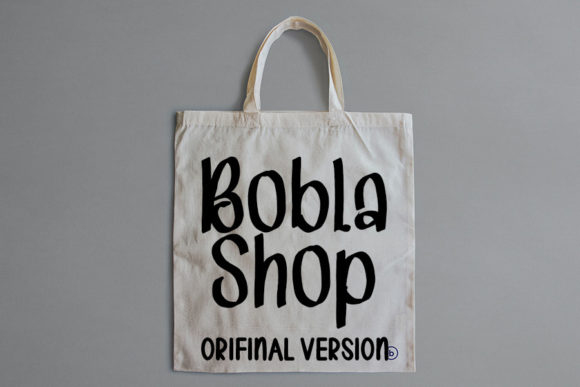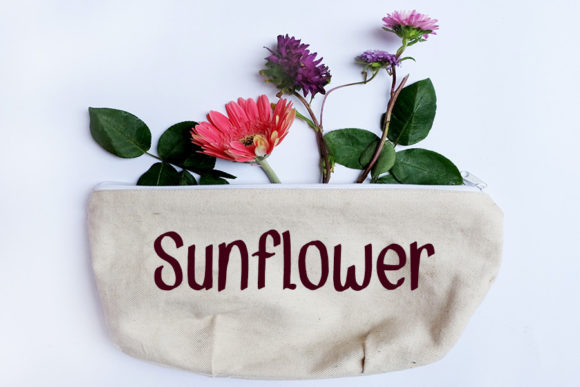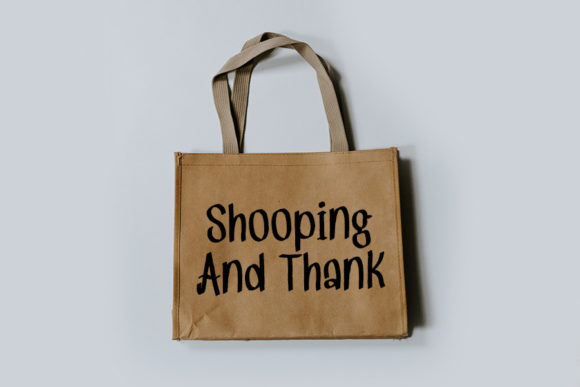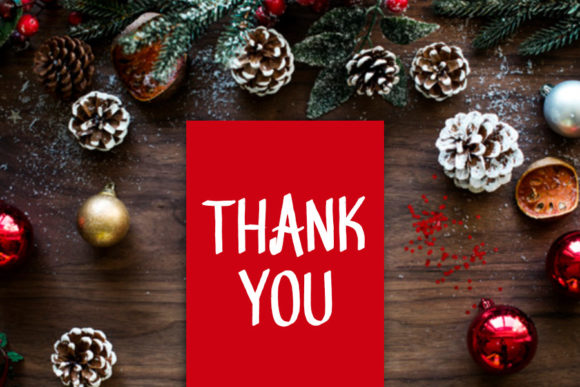
Introduction to Simple Creaming Font
Have you ever been in the midst of a creative project, struggling to find the perfect font to bring your design to life? It’s a common dilemma for designers, but what if I told you there’s a font that can instantly elevate your work and make it stand out from the crowd? Enter the Simple Creaming Font, a clean and versatile display font that’s sure to become your go-to design resource.
With its high-quality design and transparent background, the Simple Creaming Font is perfect for a wide range of creative projects, from logos and branding to typography and graphics. And the best part? It’s available for free download, making it an accessible and valuable addition to any designer’s toolkit.
- Transparent background for seamless integration into various design elements
- High-quality design resource suitable for print and digital applications
- Simple yet elegant design, perfect for minimalist and modern creative projects
- Resolution-independent for use in various mediums, from business cards to billboards
Honest Review: Simple Creaming Font
As a designer, I’m always on the lookout for high-quality design resources to elevate my creative projects. The Simple Creaming Font caught my attention, and I decided to give it a try.
- What works well: ✨ The Simple Creaming Font is incredibly versatile and easy to use, making it perfect for a wide range of creative projects, from brochures to social media graphics.
- What works well: ✨ The font is also highly customizable, allowing me to adjust the size, color, and style to fit my design needs.
However, I did encounter a few limitations. ⚠️ One of the main issues is that the font doesn’t have a transparent background option, which can make it difficult to use on complex designs with multiple layers.
Another limitation is that the font is not as comprehensive as some other design resources I’ve used in the past. ⚠️ While it’s perfect for basic design projects, it may not be suitable for more complex or professional designs.
Overall, I’m impressed with the Simple Creaming Font. It’s a great addition to any designer’s toolkit, and I appreciate that it’s available for free download. If you’re looking for a high-quality, easy-to-use font for your creative projects, I would definitely recommend giving it a try.
Some tips for getting the most out of the Simple Creaming Font include using it in conjunction with other design elements, such as graphics and images, and experimenting with different font sizes and styles. Common use cases for the Simple Creaming Font include creating logos, branding materials, and other design elements for a creative project.